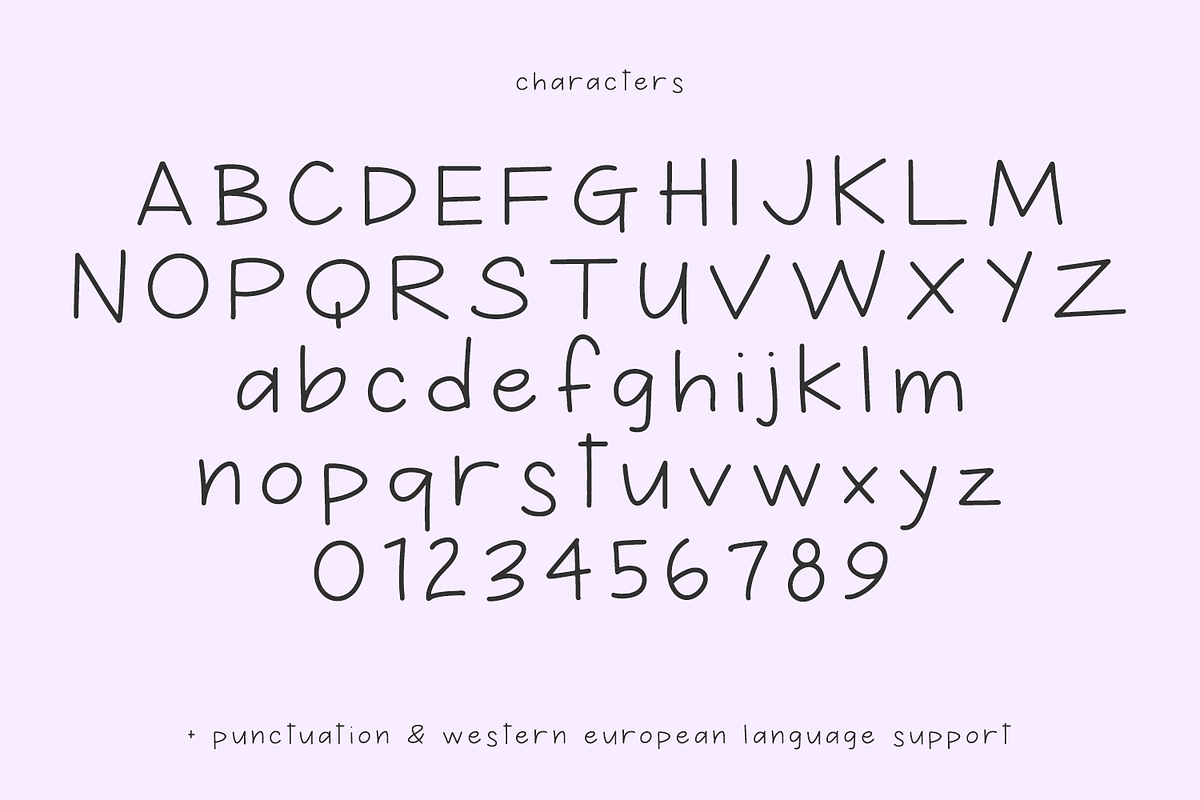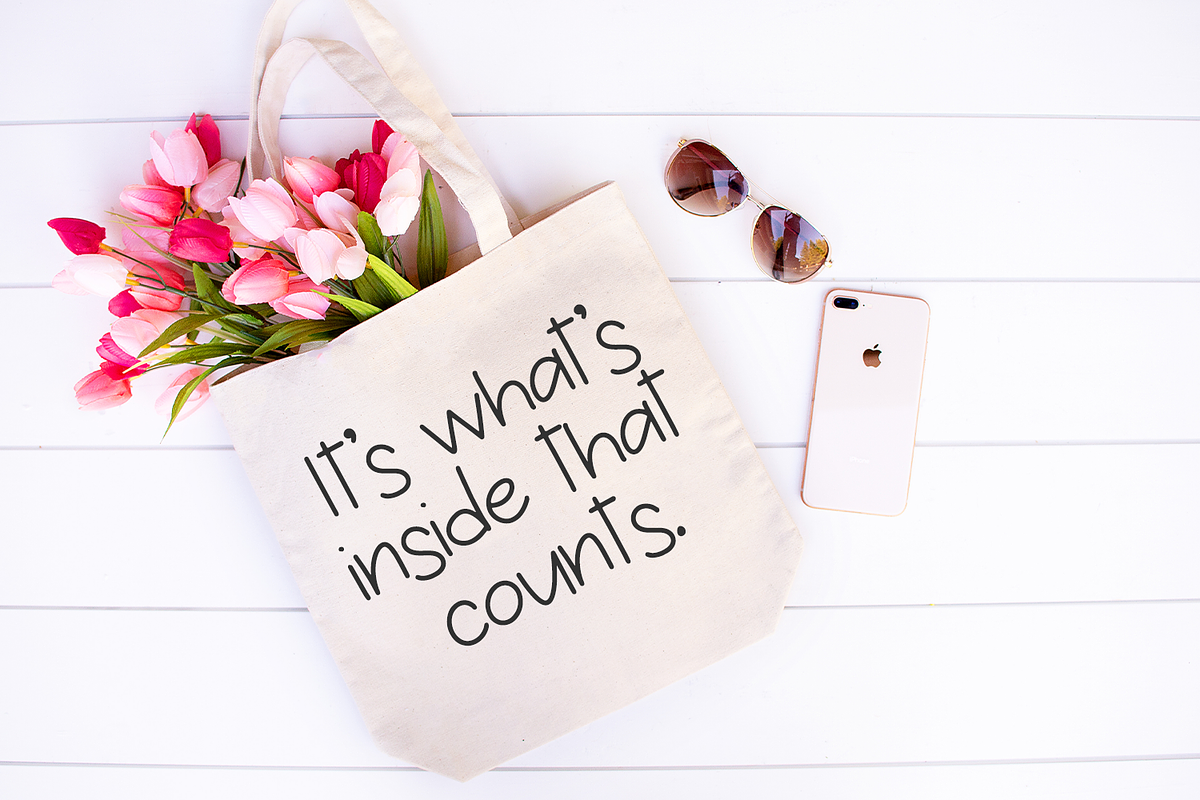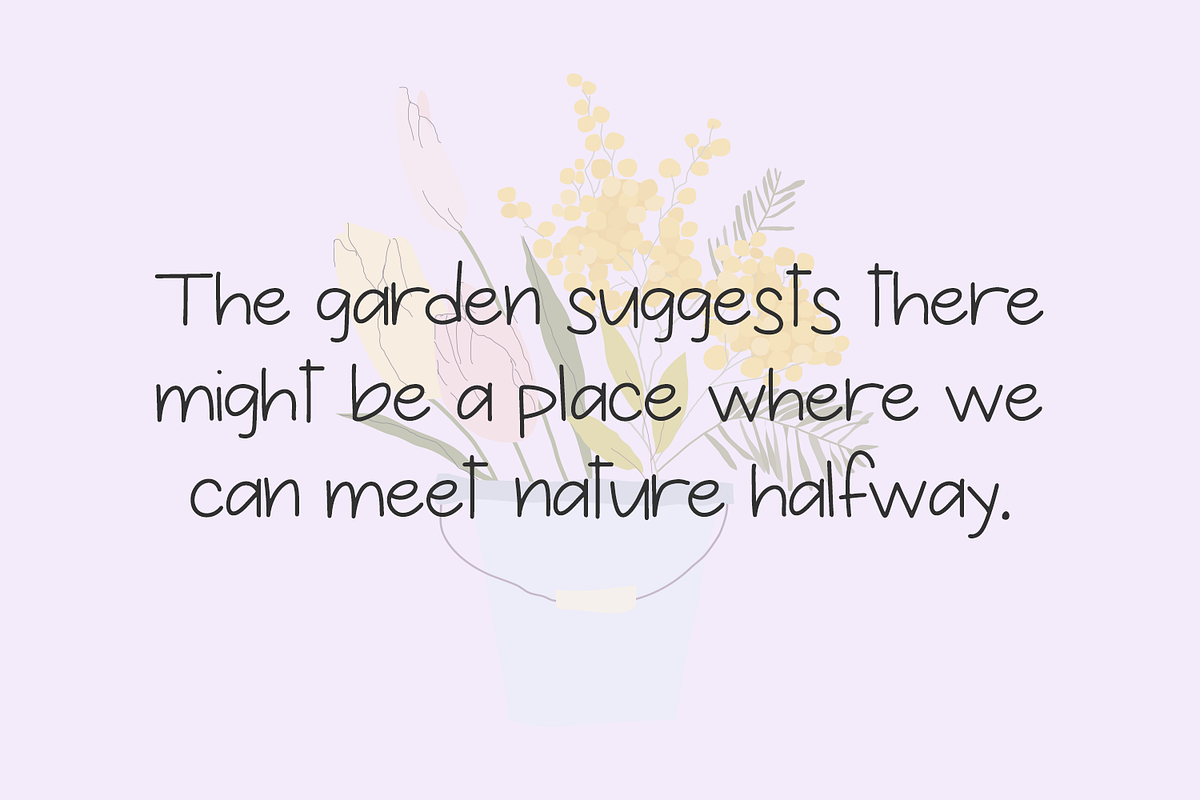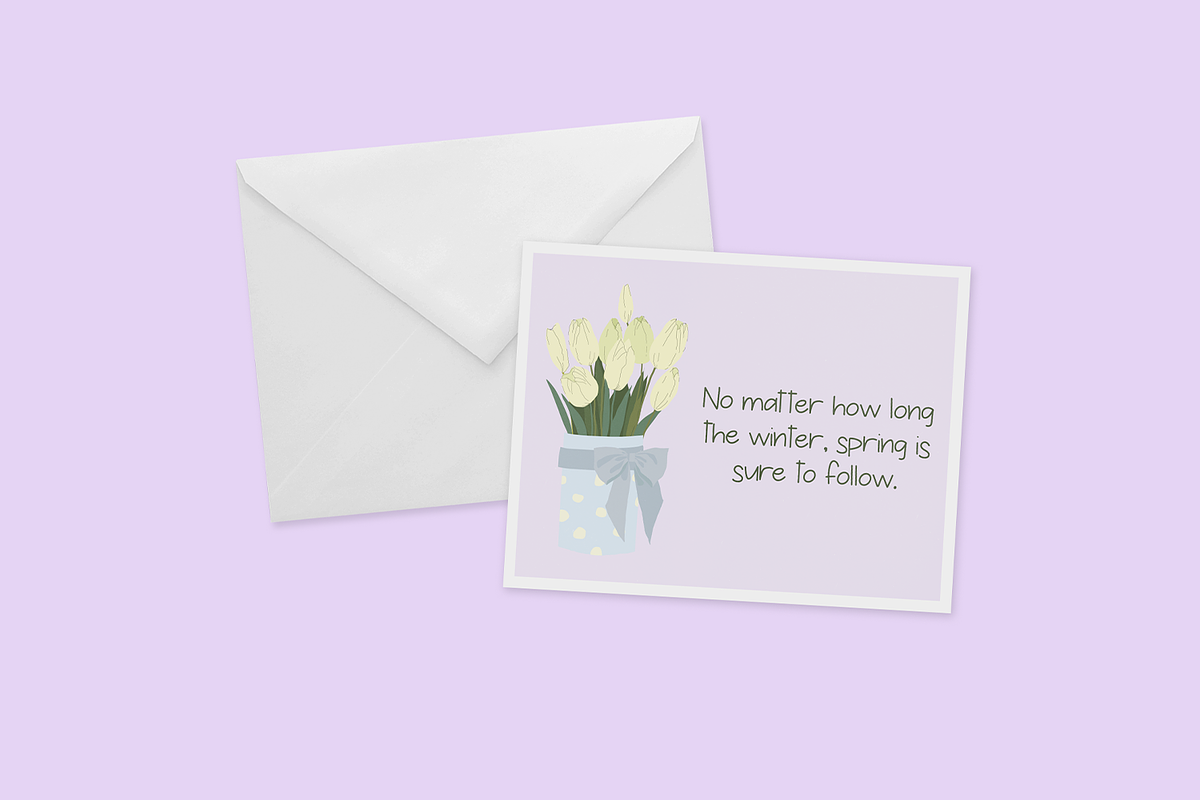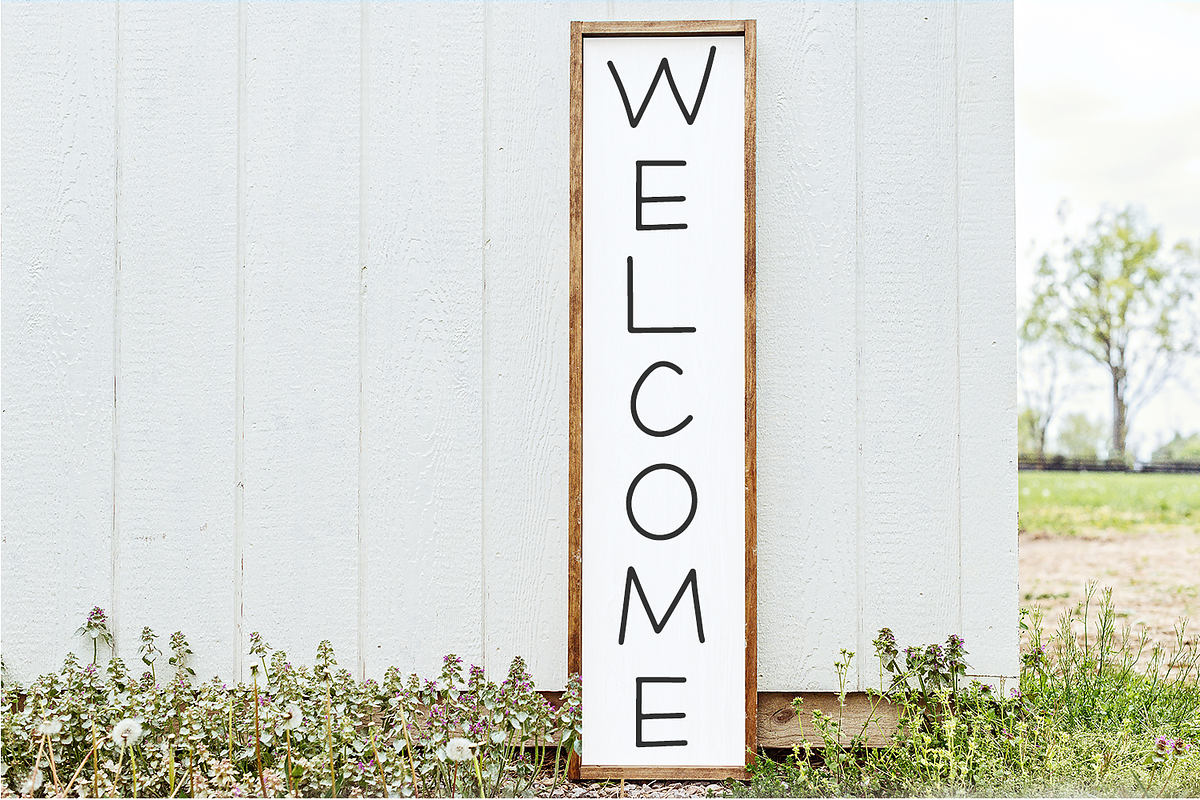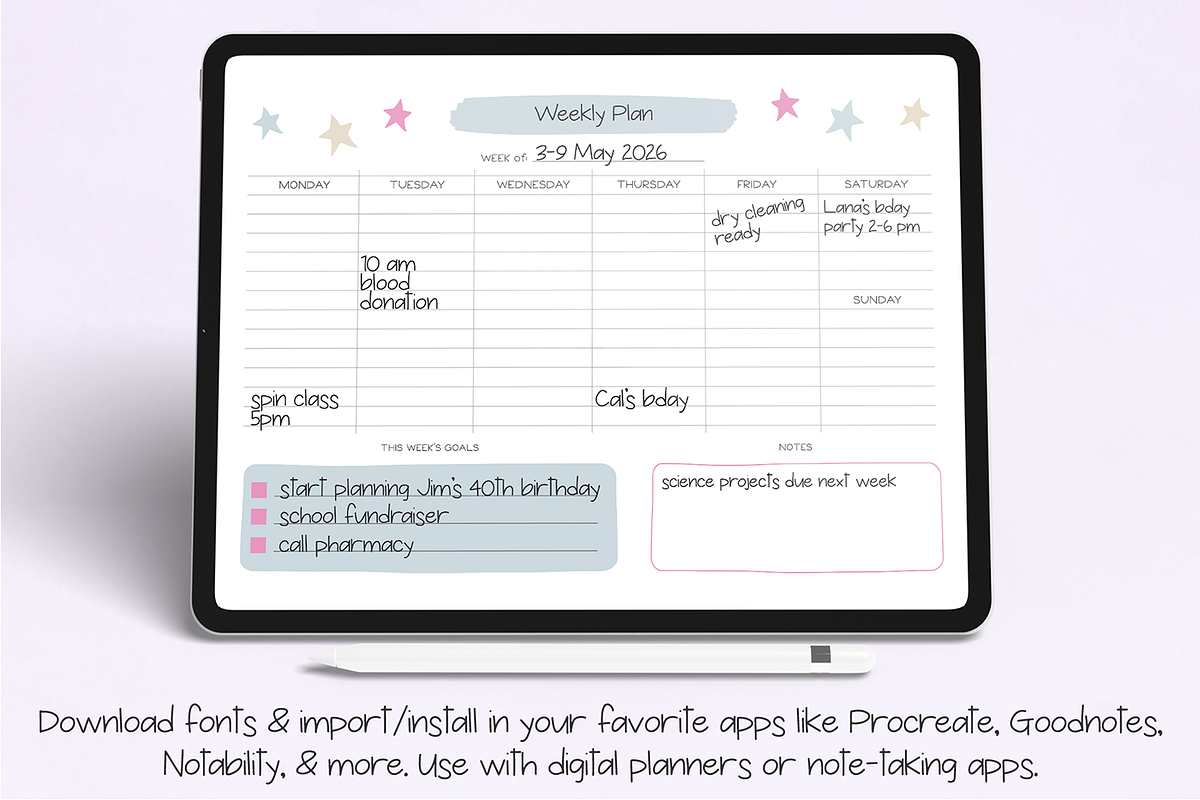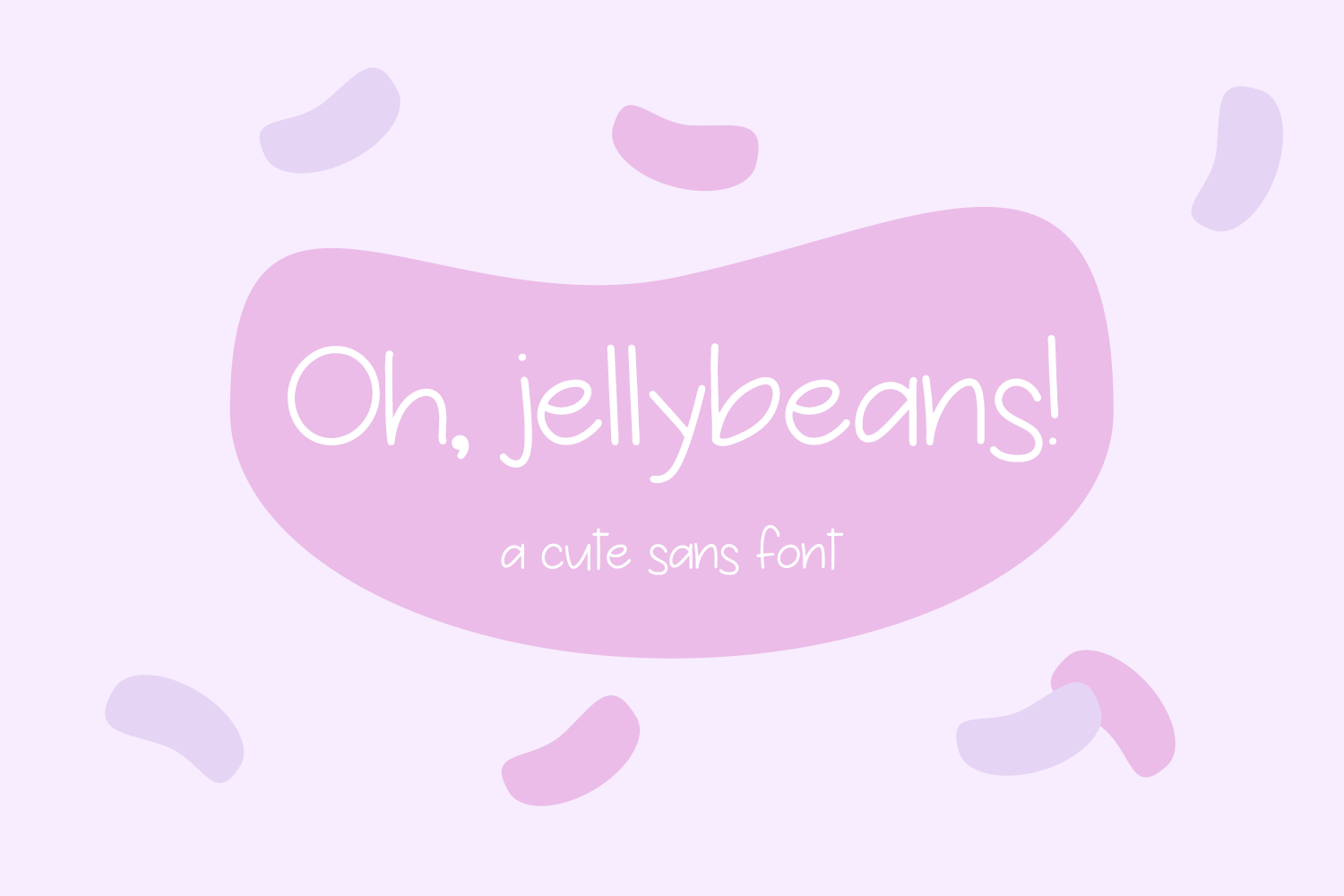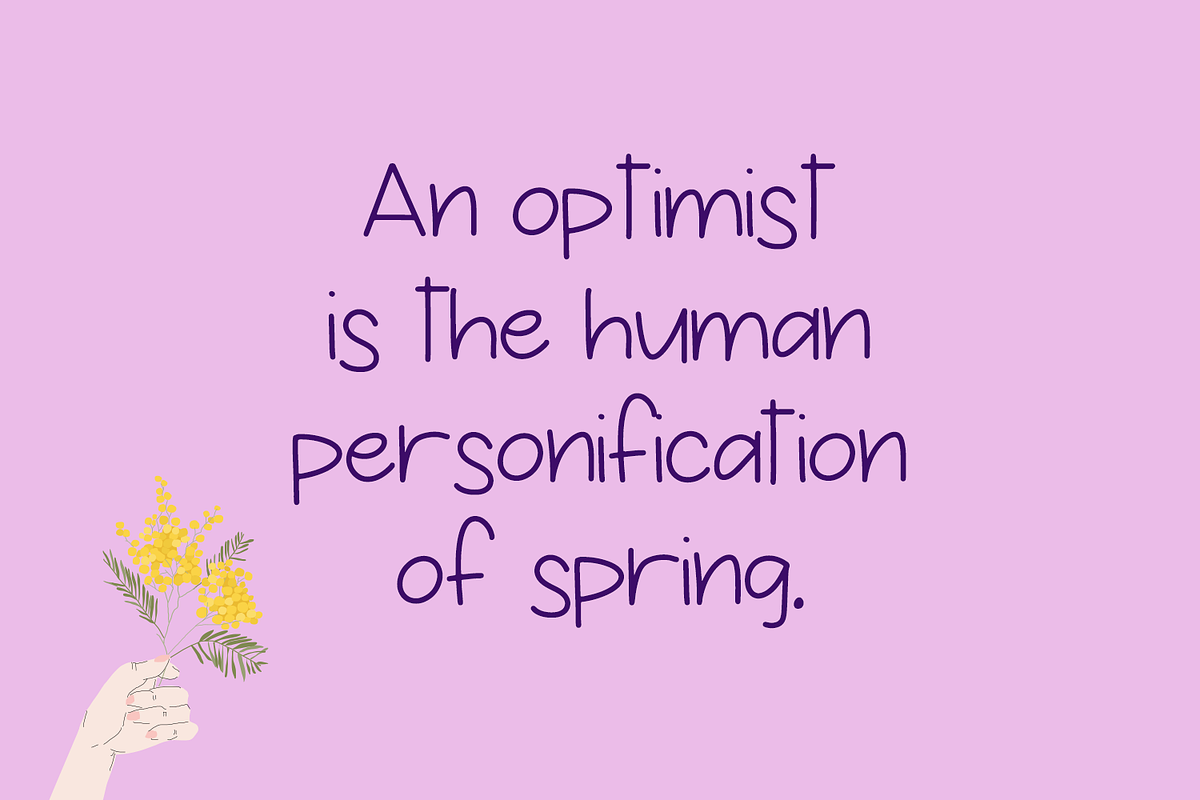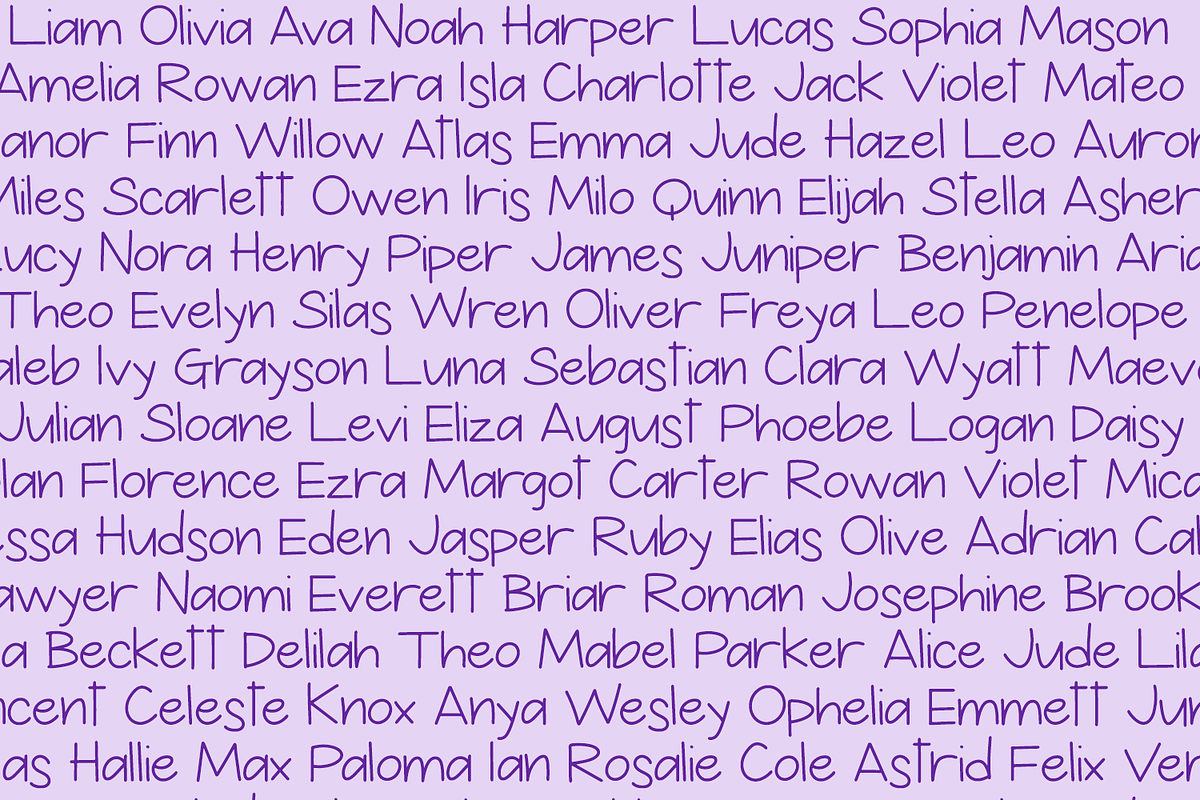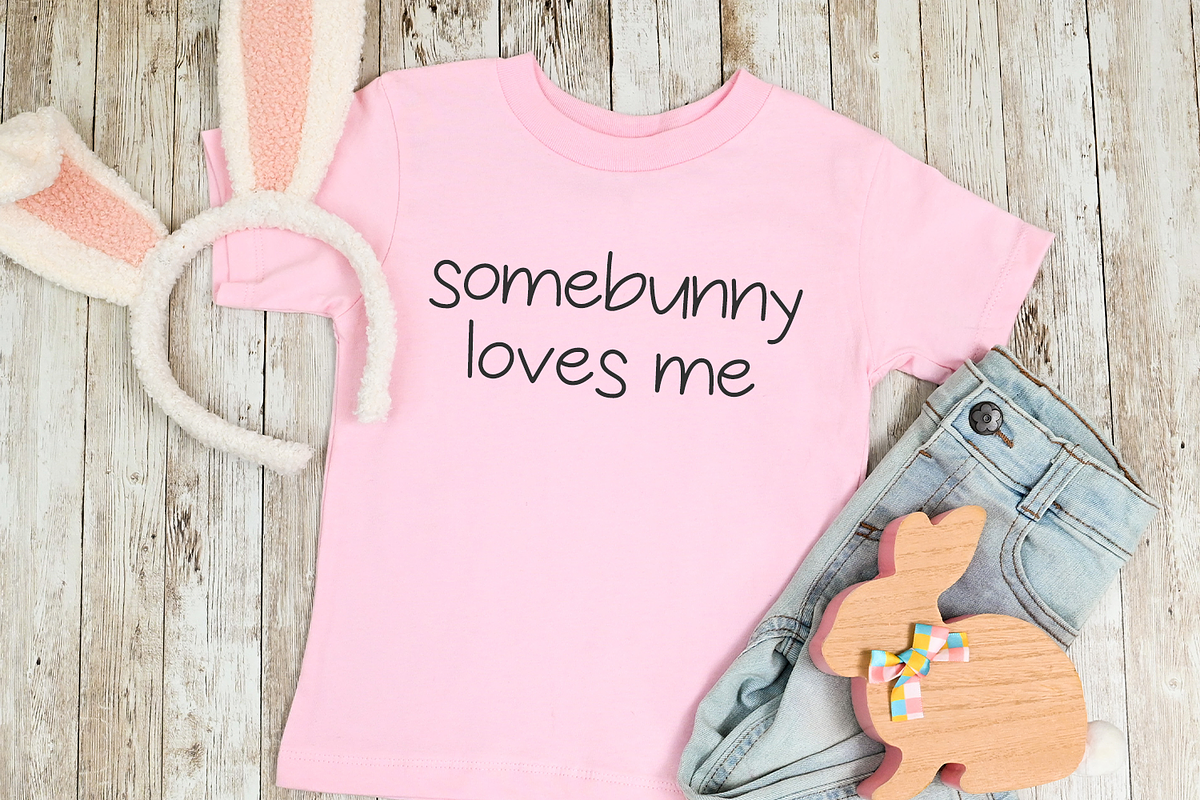
Oh Jellybeans Sans Font
Oh, Jellybeans! Sans is an adorable handwritten sans font. This font is neat & tidy, with a child-like quality. Because of this, it would make a great addition to a teacher’s font collection, children’s books, or classroom decor. Oh, Jellybeans! Sans is also perfect for logos & branding, greeting cards, painted banners, digital planners, note-taking apps, Canva, Cricut projects, Silhouette projects, designing SVG files, laser cutting projects, & more.
Oh, Jellybeans! Sans includes:
- full upper + lowercase characters
- numbers + punctuation
- Western European language support - English, French, Spanish, Portuguese (Brazil), Portuguese (Portugal), Italian, German (Germany), German (Austria), Dutch, Danish, Swedish, Norwegian (Bokmål and Nynorsk), Finnish, Icelandic, Irish, Welsh